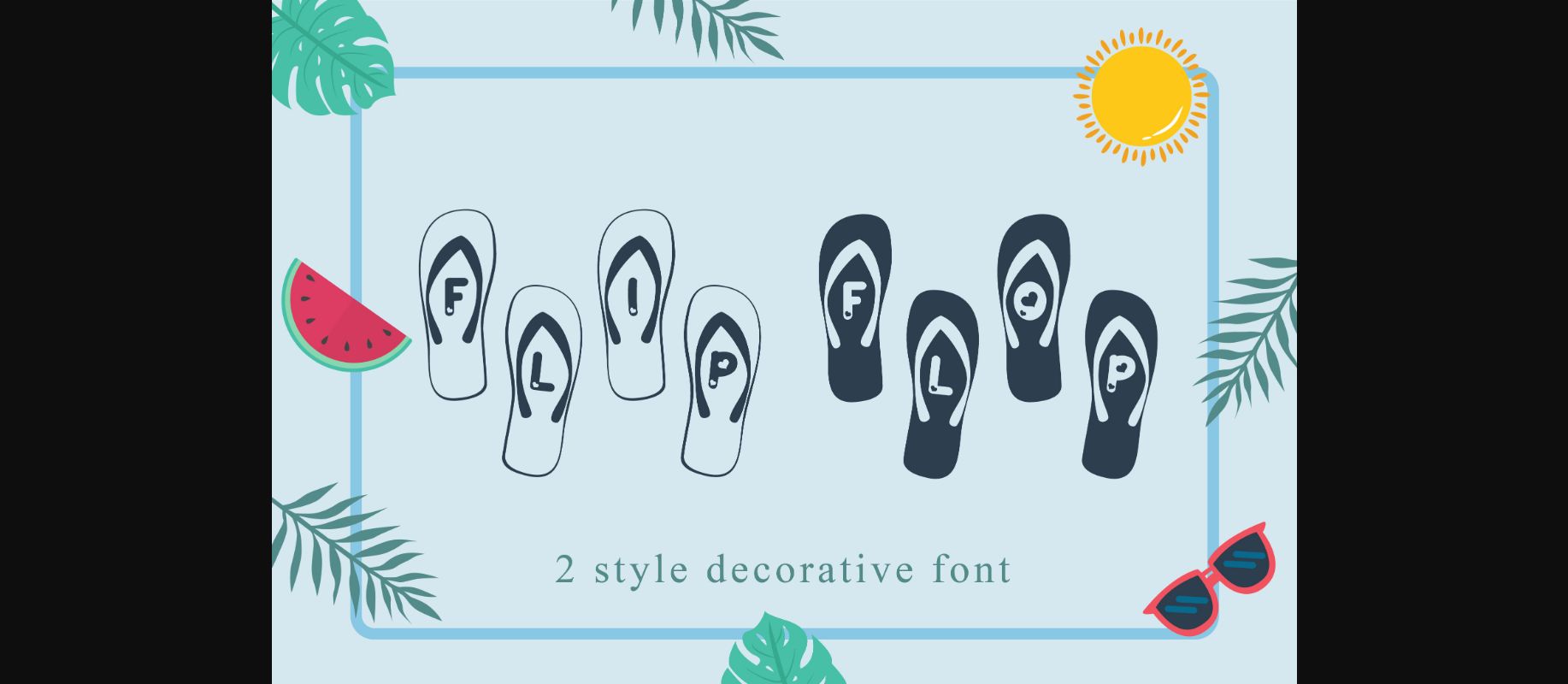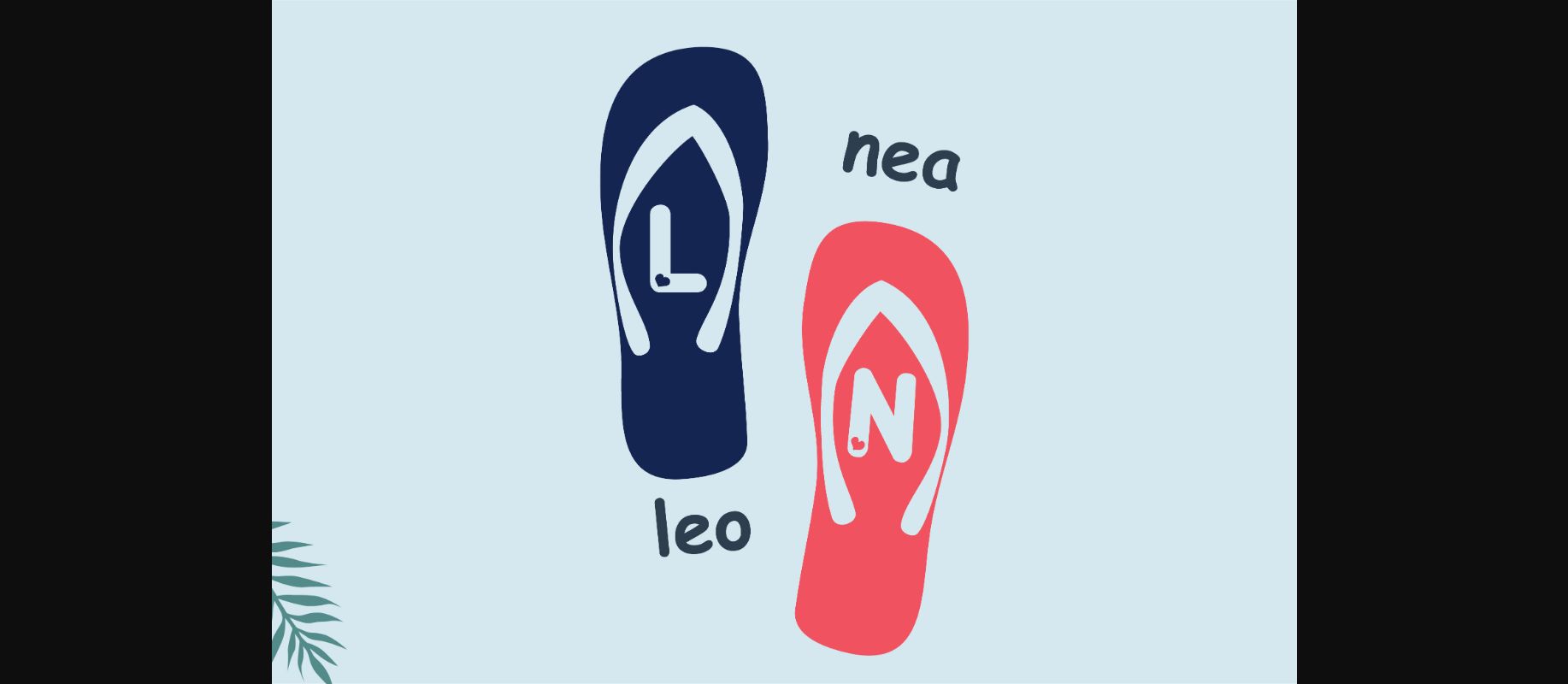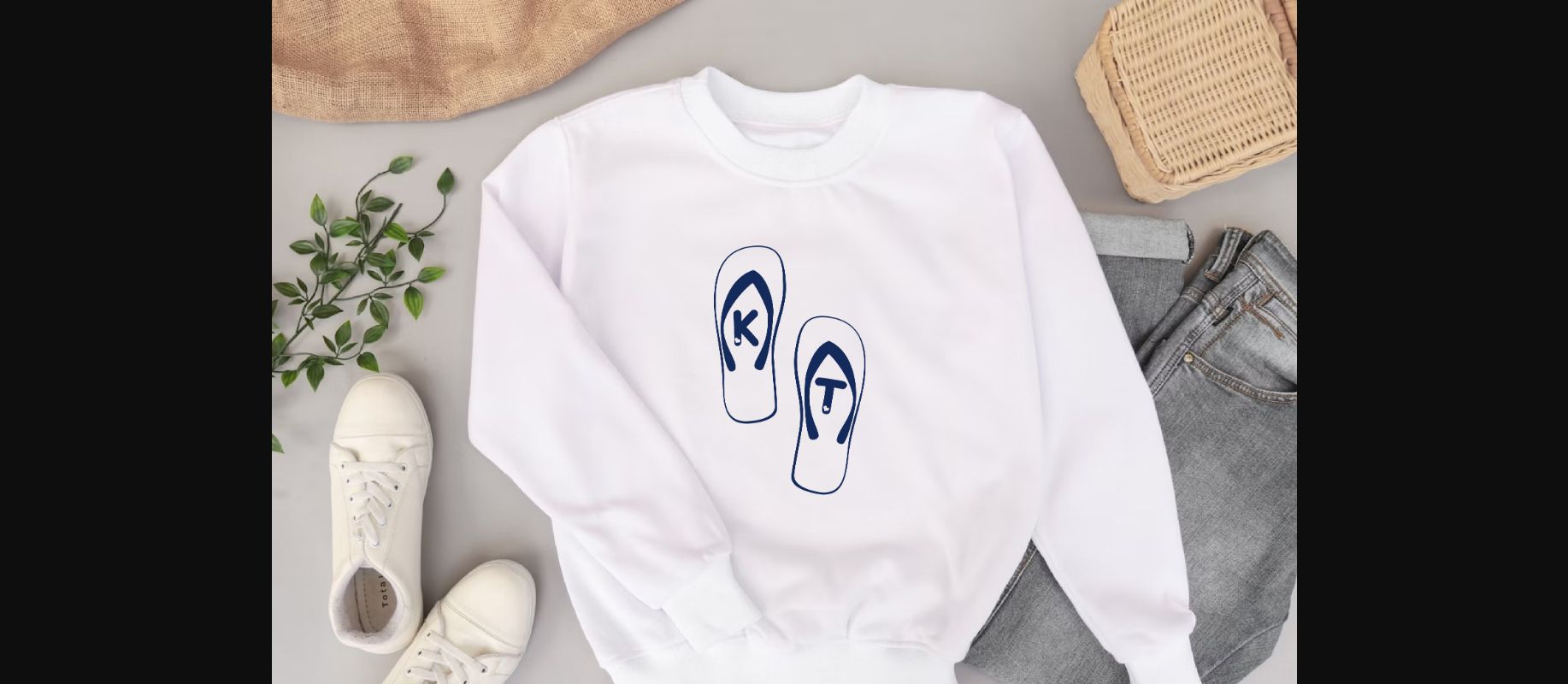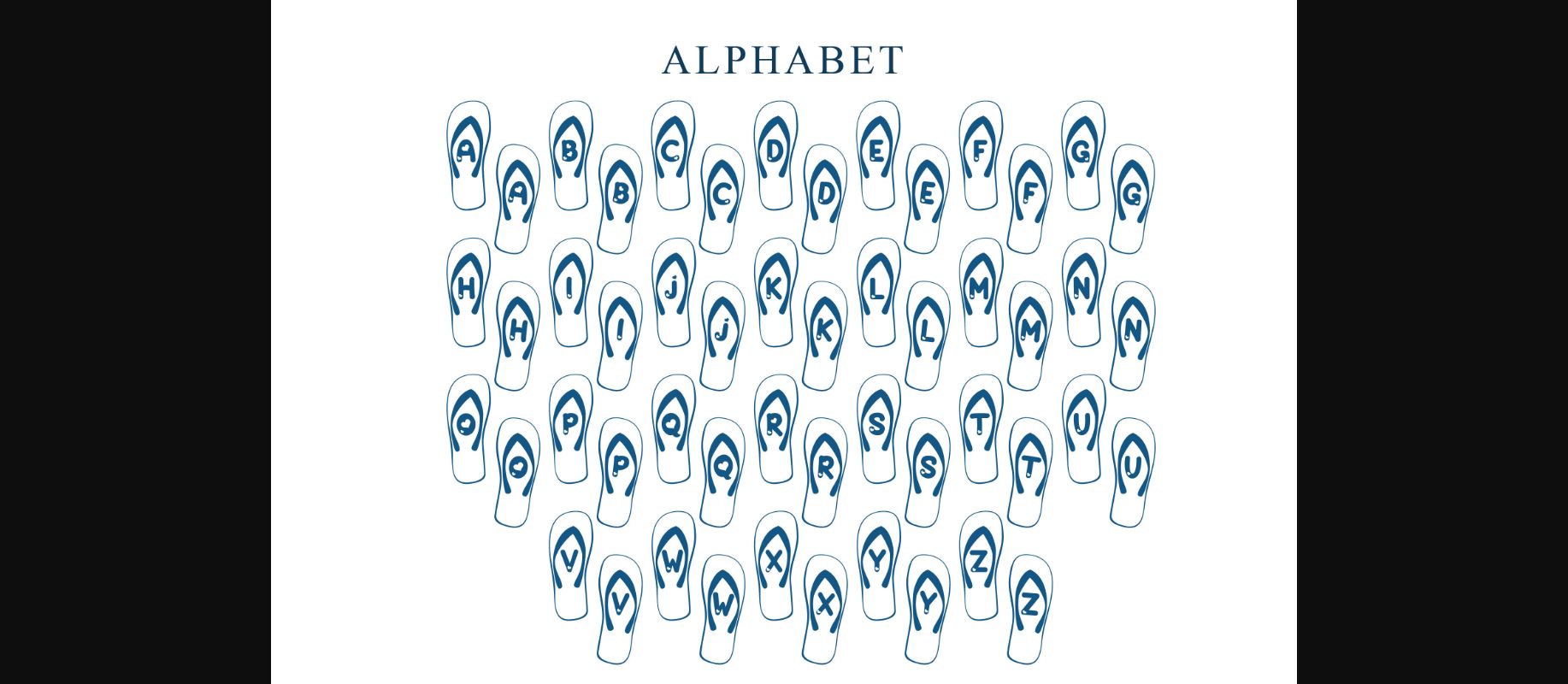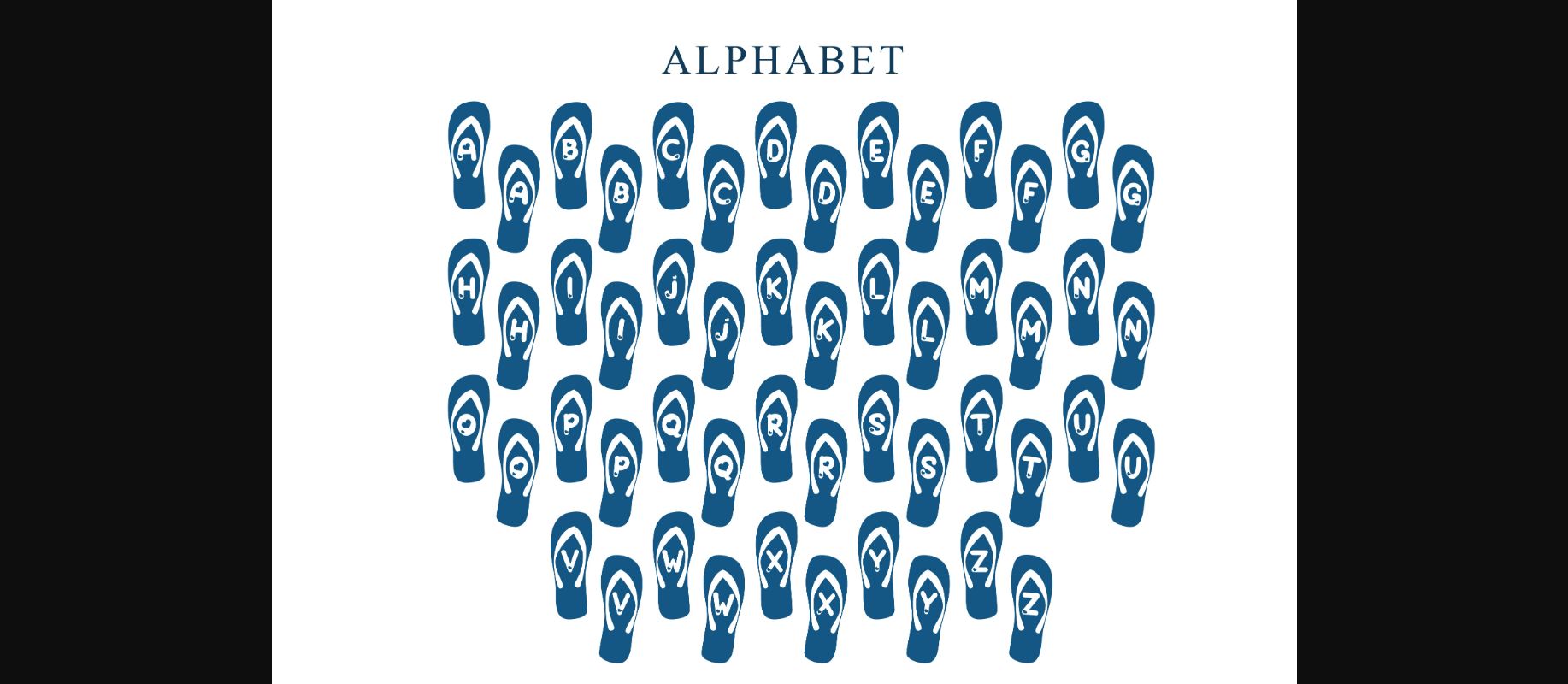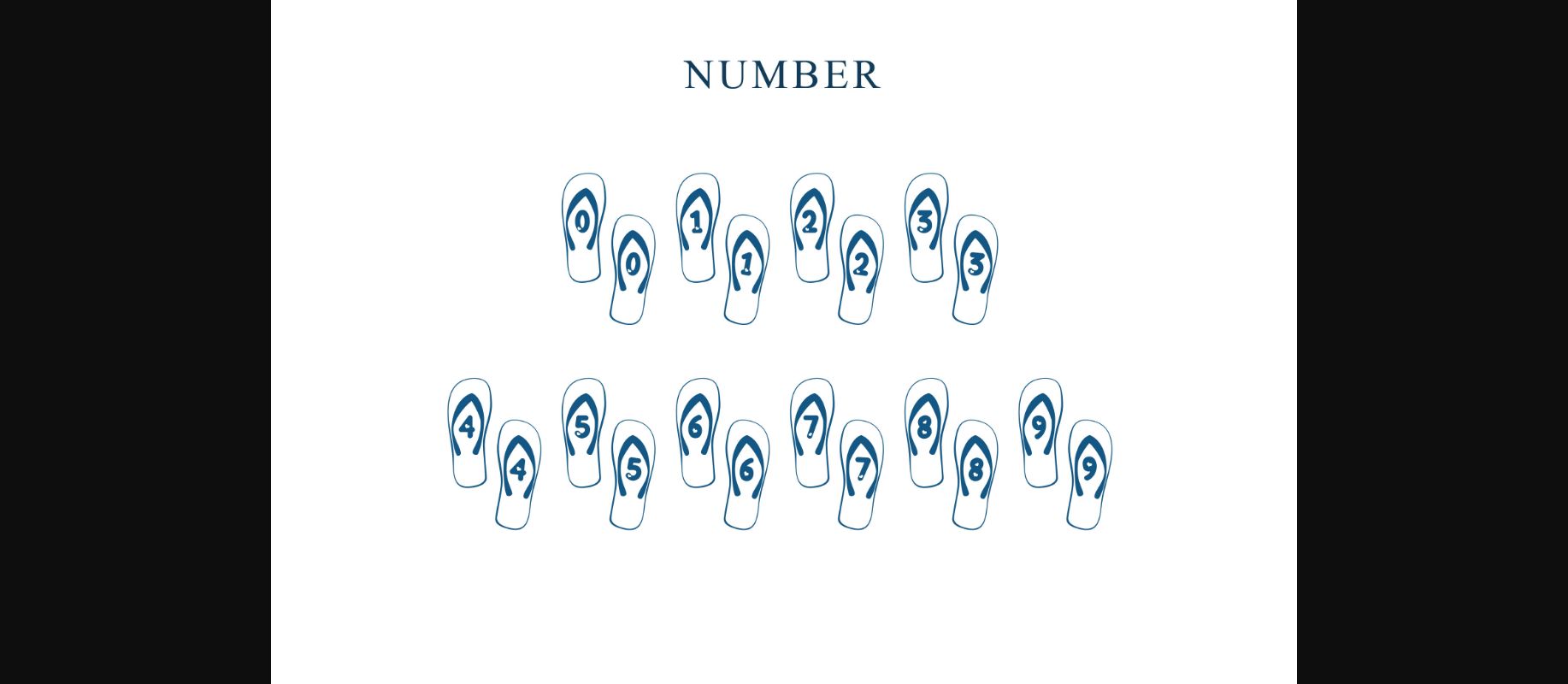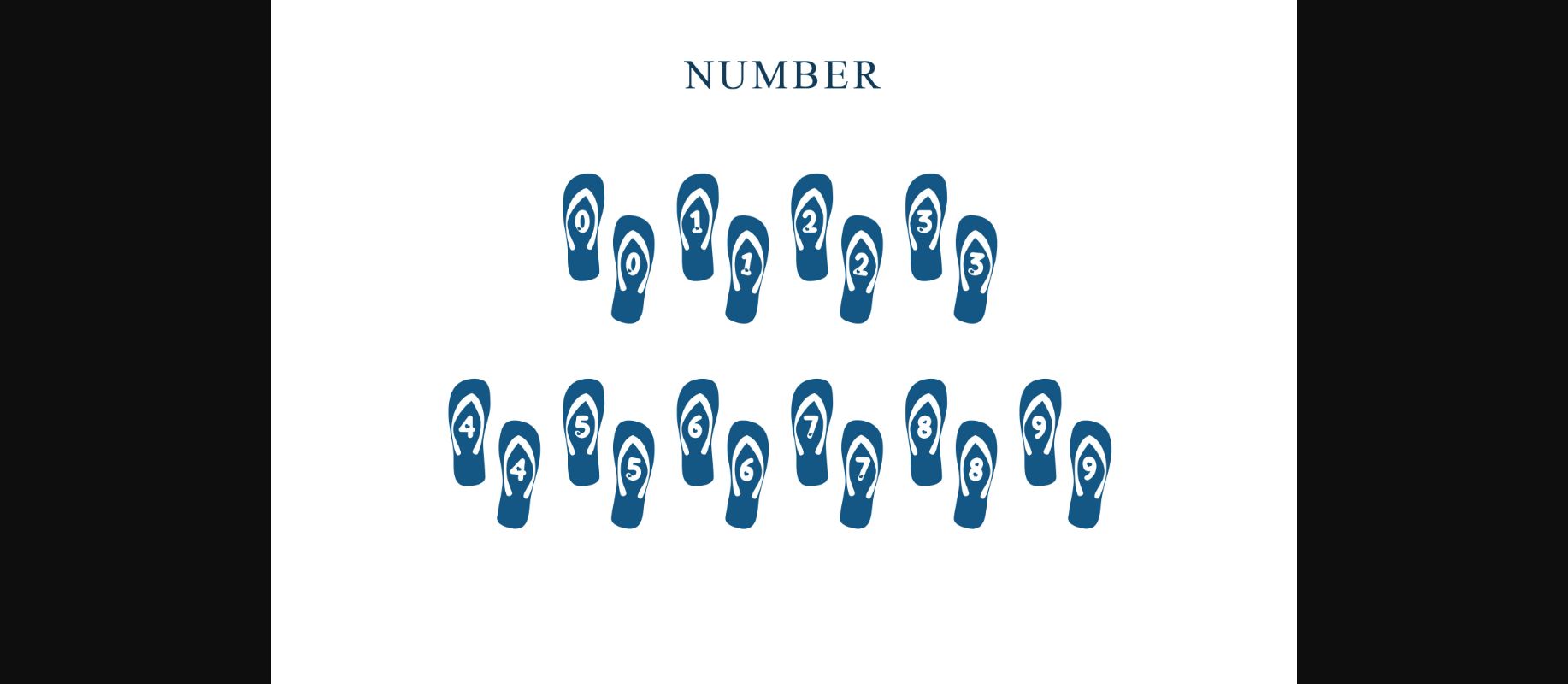
HomeDecorative FontsFlip Flop Font Decorative Fonts Flip Flop Font FacebookXPinterestWhatsApp 1 of 9 ... Flip Flop Font Poster 2... Flip Flop Font Poster 3... Flip Flop Font Poster 4... Flip Flop Font Poster 5... Flip Flop Font Poster 6... Flip Flop Font Poster 7... Flip Flop Font Poster 8... Flip Flop Font Poster 9... About Flip Flop Font Flip Flop is a unique and playful decorative font, that adds radiance to your summer designs. With both solid and outline styles, let your creativity shine through with this delightful font. DOWNLOAD NOW People also explored Avelino MTL Font Fast Lecture Font Bready Font Vlottheli Font Nautical Font Salmoni Lemon Trifle Font Beaulieu Marshill Font 359 0 TagsFlip Flop Font Previous articleSpace Planet FontNext articleBrown Story Font LEAVE A REPLY Cancel reply Comment: Please enter your comment! Name:* Please enter your name here Email:* You have entered an incorrect email address! Please enter your email address here Website: Save my name, email, and website in this browser for the next time I comment. Personal Use Free Pattern Personal Use Free Read more about this font Good Luck Personal Use Free Read more about this font Dear Monita Personal Use Free Read more about this font Austin Personal Use Free Read more about this font BLOG How to Install and Use Fonts on Windows, macOS, and Web Projects How to Install and Use Fonts on Windows, macOS, and Web Projects Fonts are a crucial part of design and branding. Whether you’re designing a... To increase your work productivity, choose the most readable fonts. Top 7 Google Fonts Alternatives for Faster and Privacy-Friendly Web Design (2025) Best Fonts for YouTube Videos: Make Your Thumbnails Stand Out